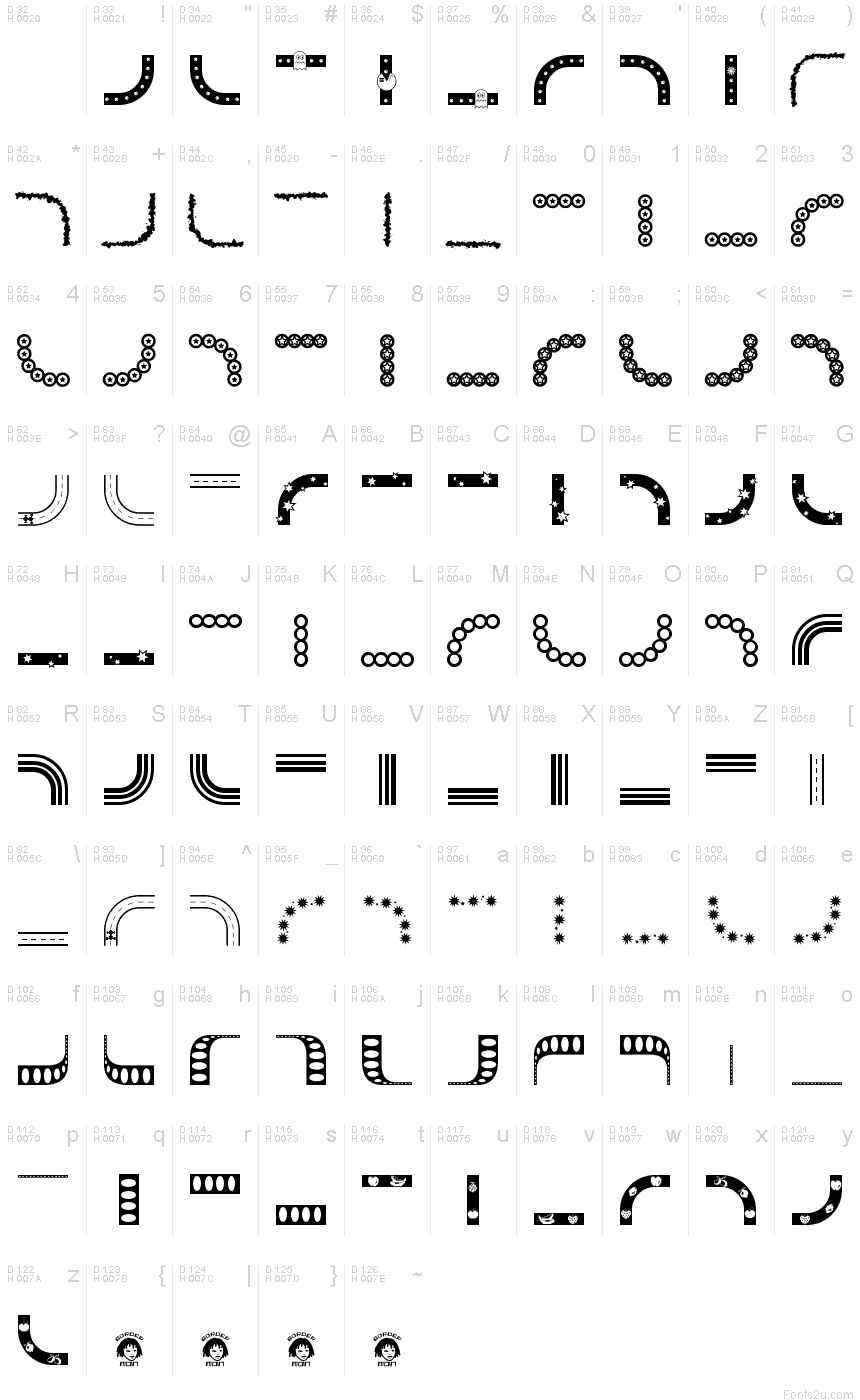
BorderMon Series 1
BorderMon Series 1 font by Fontalicious Fonts is a free dingbats typeface that drops ready-made borders and dividers right into your layout. The shapes feel thick and inky, with chunky tracks sprinkled with little stars, dots, and spiky bursts-like a retro HUD or a notebook margin gone cosmic. When you need ornament without fussing with vector pen tools, it gets you there fast.
Using BorderMon Series 1, you can punch up scrapbook pages, party invites, kids’ posters, zines, sci‑fi UI mockups, sticker sheets, and social headers with crisp separators and frames. This free font works best when you scale the ornaments big enough to show the starry texture; pair it with a quiet sans like Inter or Arial to keep your copy readable.